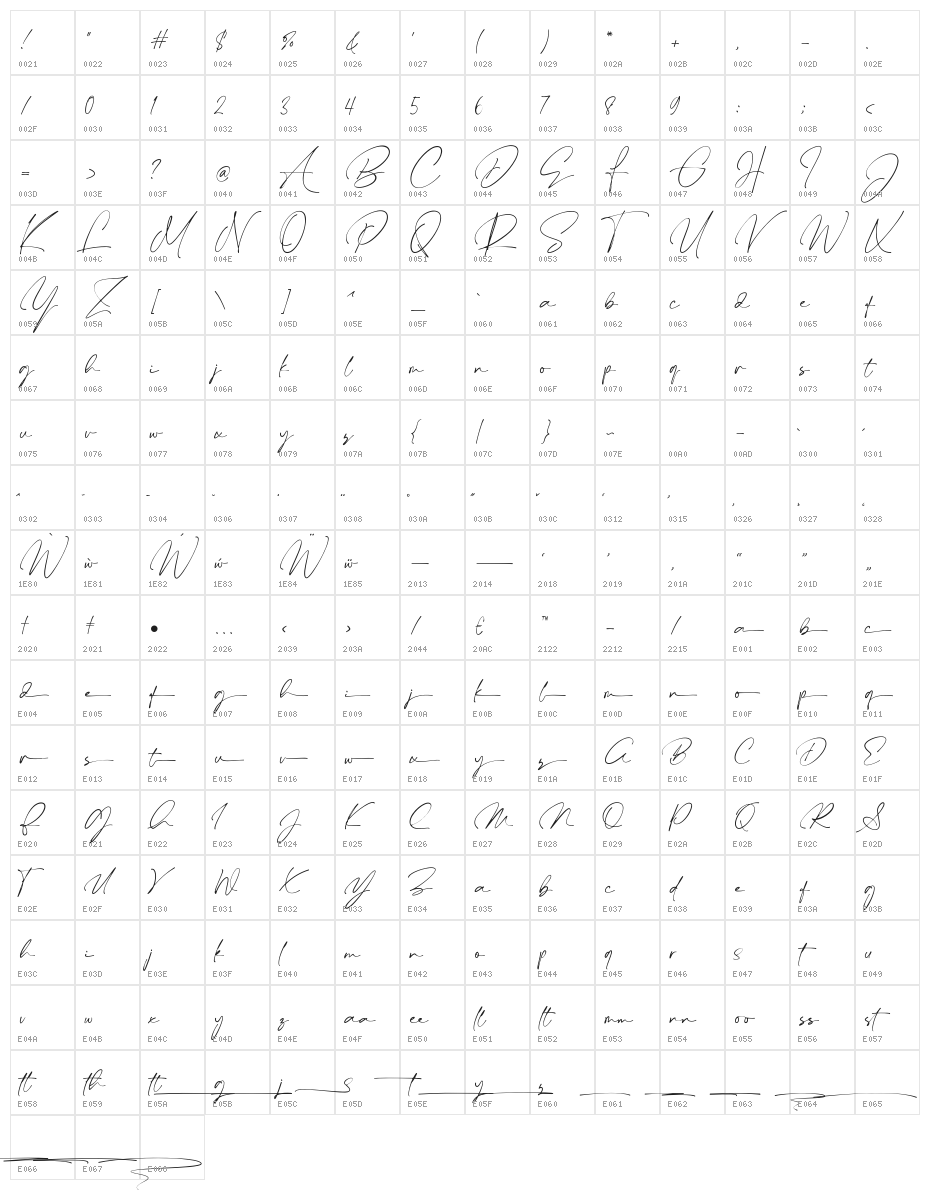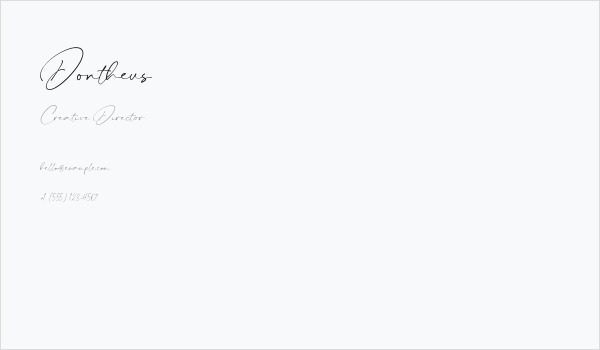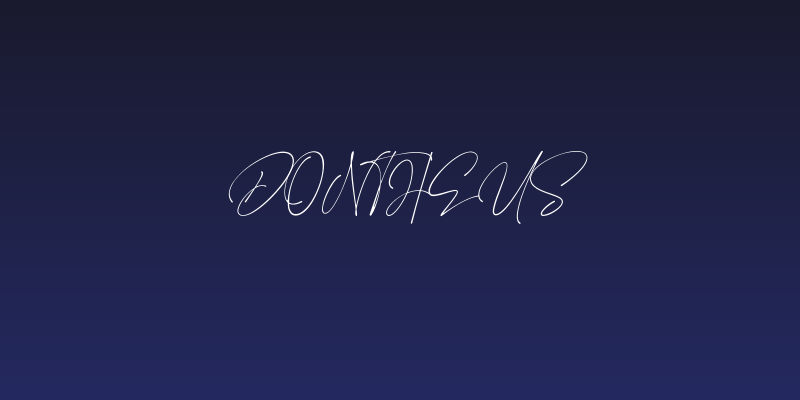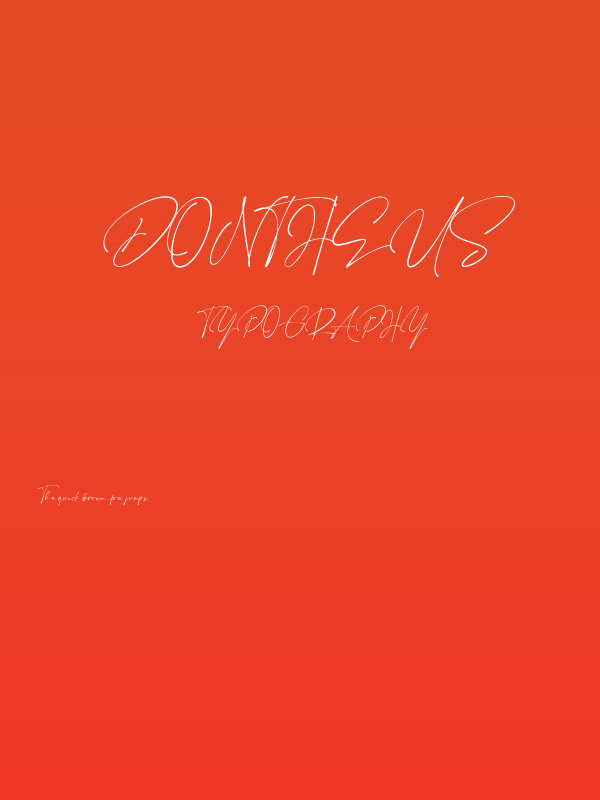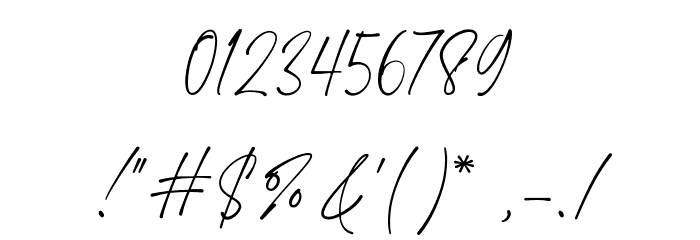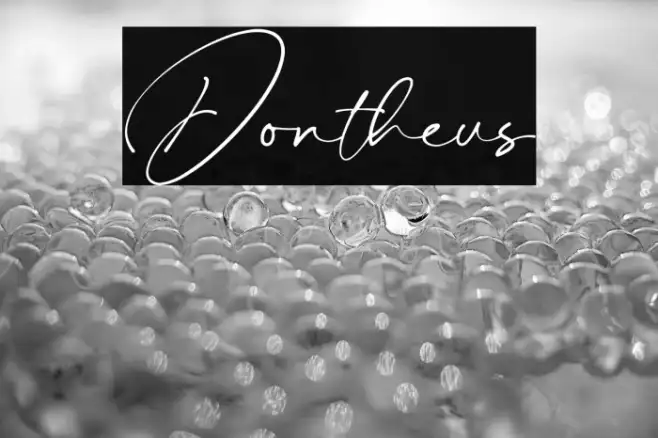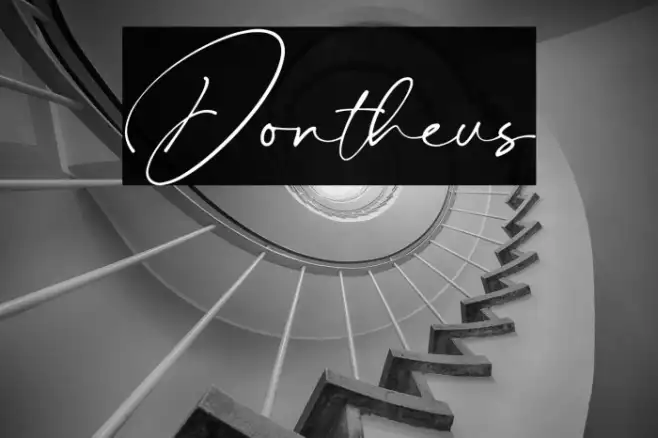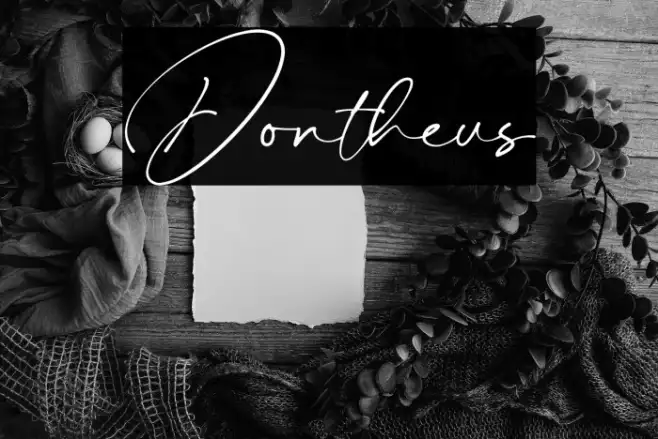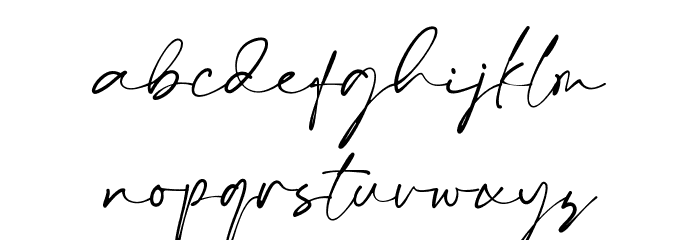
Dontheus Font
Dontheus Description
This font exudes a modern, handwritten style with a touch of elegance and fluidity. The characters are crafted with a delicate, flowing script that mimics natural handwriting, giving it a personal and intimate feel. The uppercase letters are slightly more elaborate, with sweeping lines and curves, while the lowercase letters maintain a consistent, smooth flow. The numerals and special characters are designed to complement the overall aesthetic, maintaining the same graceful and fluid style. This font is perfect for projects that require a personal touch, such as invitations, greeting cards, or branding materials that aim to convey warmth and sophistication.
| Proposed Projects | Ideal for wedding invitations, personal branding, greeting cards, and elegant stationery. |